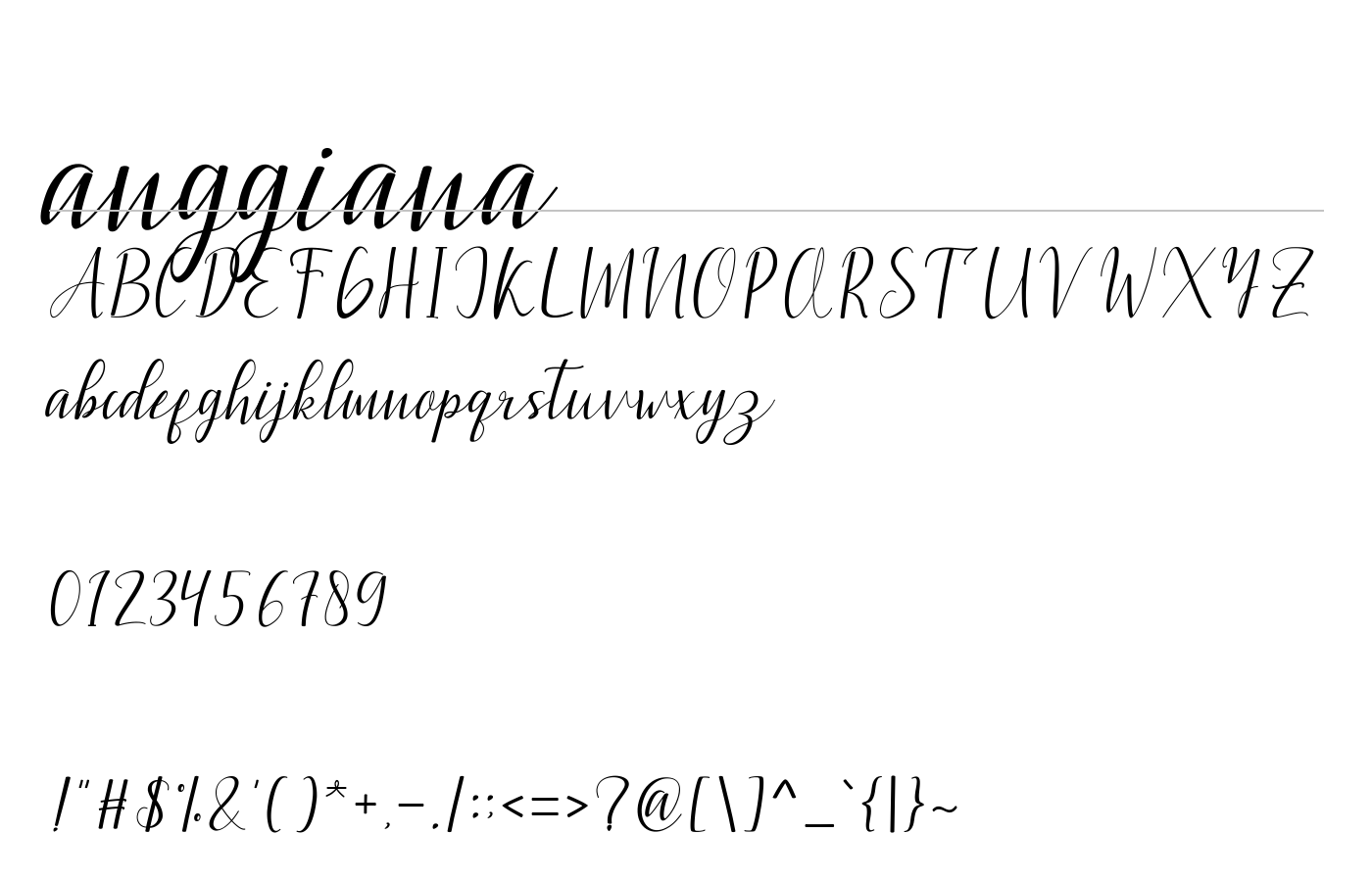
Anggiana is an elegant, script-style font characterized by its delicate, flowing strokes and a graceful, handwritten feel. It features a light weight with a slightly condensed width and a subtle contrast in stroke thickness, making it perfect for sophisticated invitations, branding, and stylish headlines where a personal, refined touch is desired. Its fluid letterforms and tall x-height create an airy, classy look that works beautifully in luxury and fashion contexts.
anggiana Font
About anggiana Font
| Font family | anggiana Font |
| Designer | ramadhana |